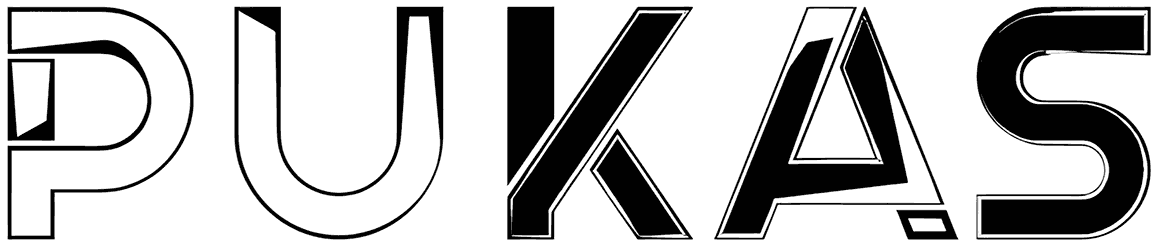
Pukas is a lovely masterpiece that can be utilized as a decorative font in a wide range of graphic content, including editorial projects, web pages, logos, flyers, or brochures.
This tech font carries a sense of sincerity, jauntiness, or creativity. Aside from the lack of lowercase letters and numbers, this two-tone font is capable of boosting the quality of your artwork to the highest possible level.